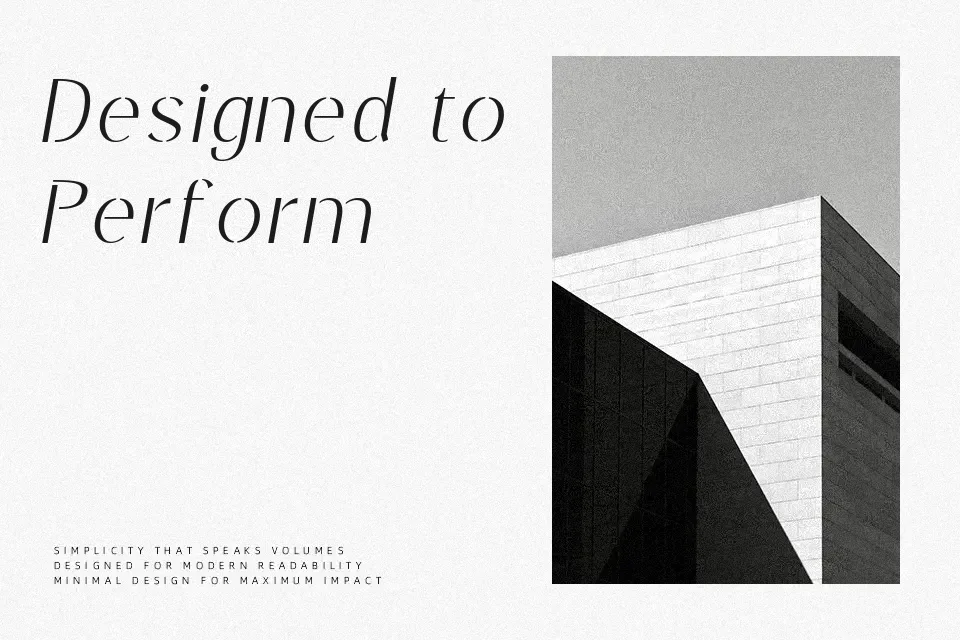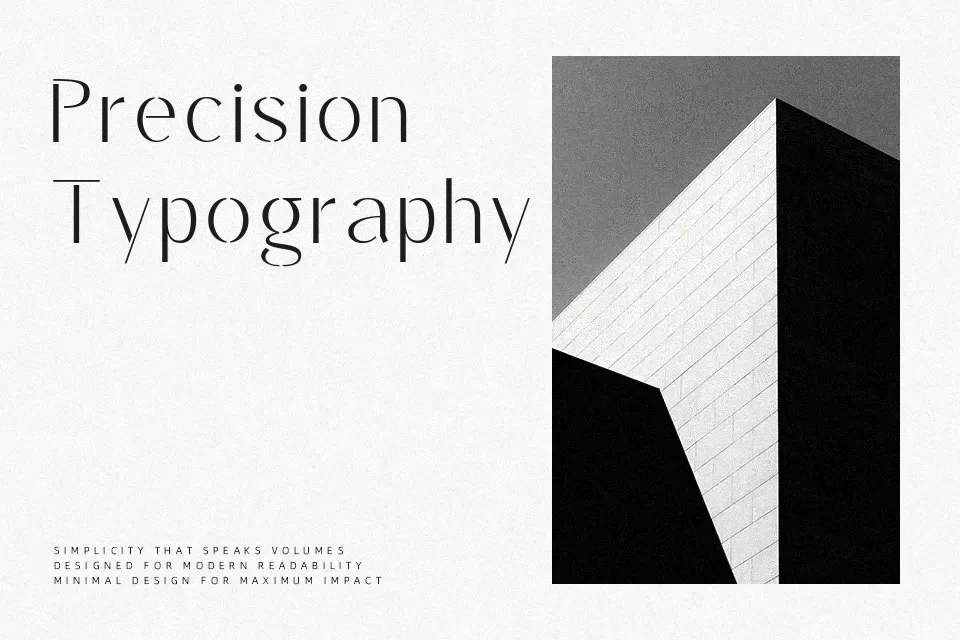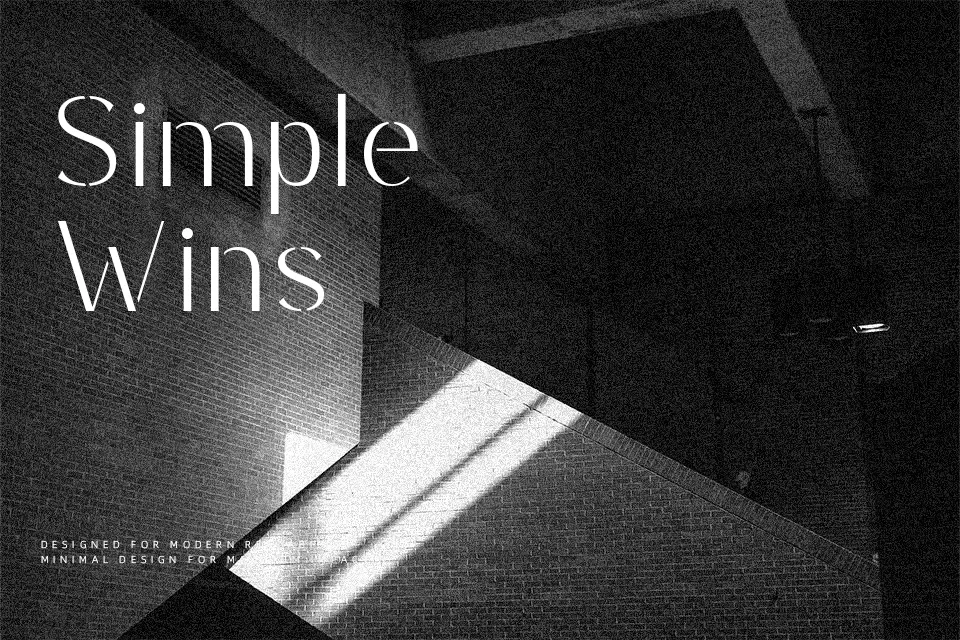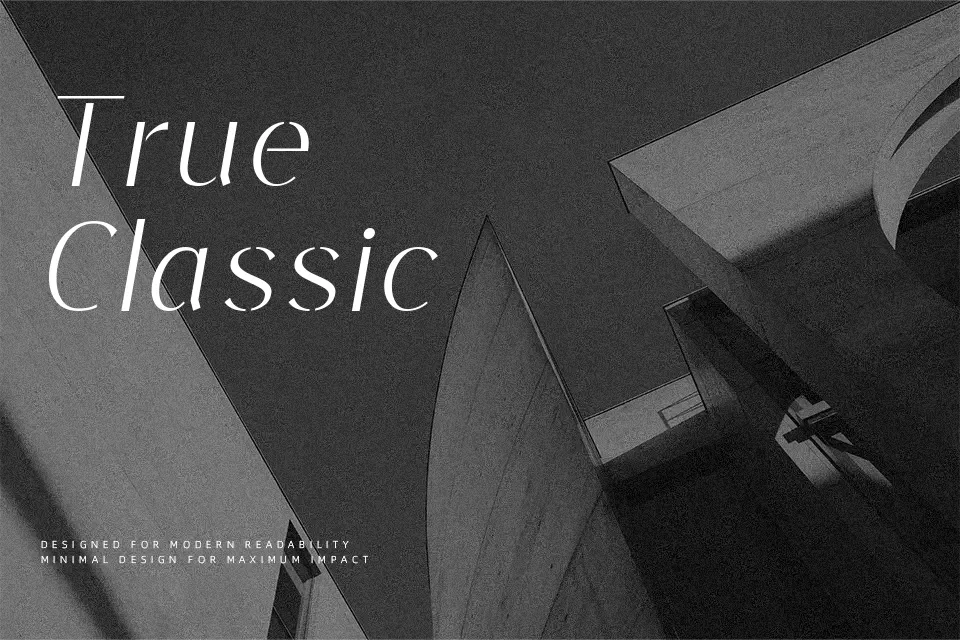
Cellga Font
Designed by Alit Design
Cellga Font features a structured sans-serif anatomy punctuated by precise stencil cuts and consistent moderate stroke weights. The letterforms display vertical proportions, uniform geometric curves, and open interior counters that maintain balanced spacing throughout title settings. At large display scales, the clean disconnects along curved and diagonal junctions create a sophisticated rhythm suited for luxury editorial layouts, title cards, and retail signage. However, the delicate bridges become difficult to discern at small text sizes, making the typeface unsuitable for extended body paragraphs or dense mobile interfaces. For short headlines and identity projects, the design delivers crisp aesthetic clarity.
Best For: luxury product packaging, fashion magazine headlines, editorial poster titles, cosmetic branding
Not Ideal For: continuous body text, dense spreadsheet data, small interface labels, technical documentation
Perfect for branding, fashion, and headline, with a clean and display style.